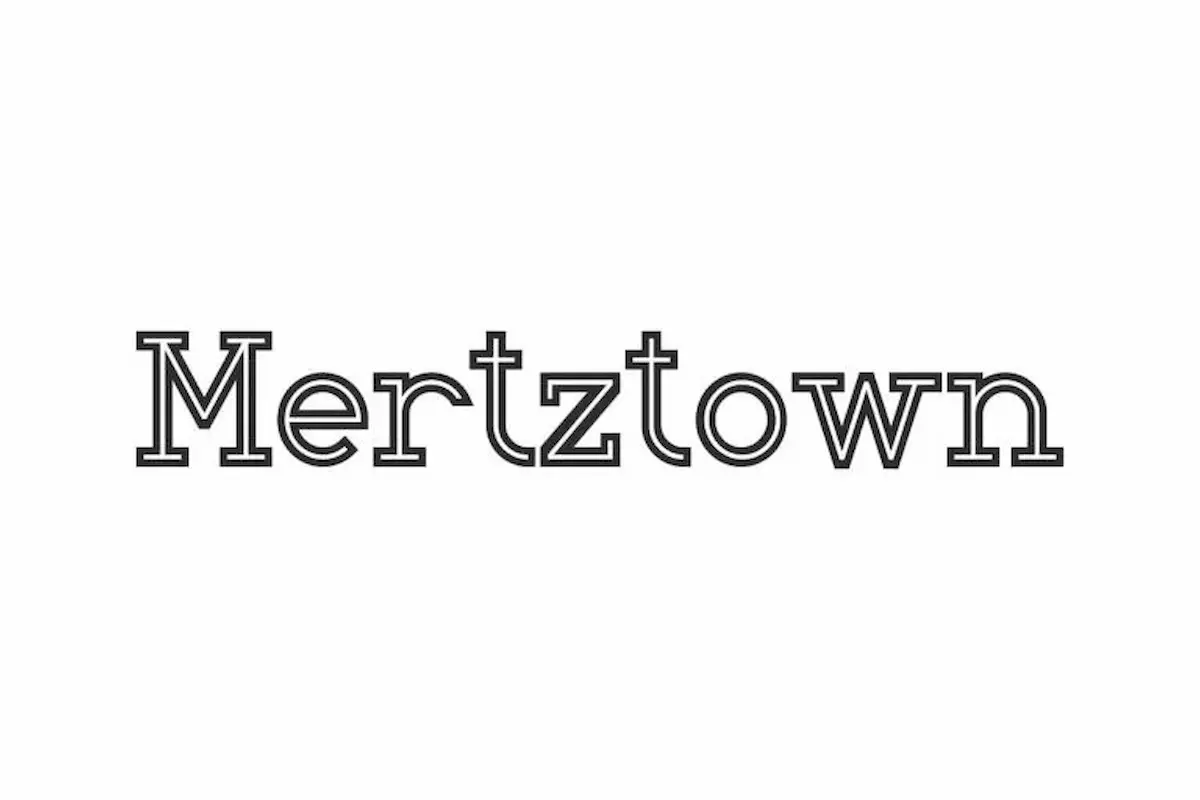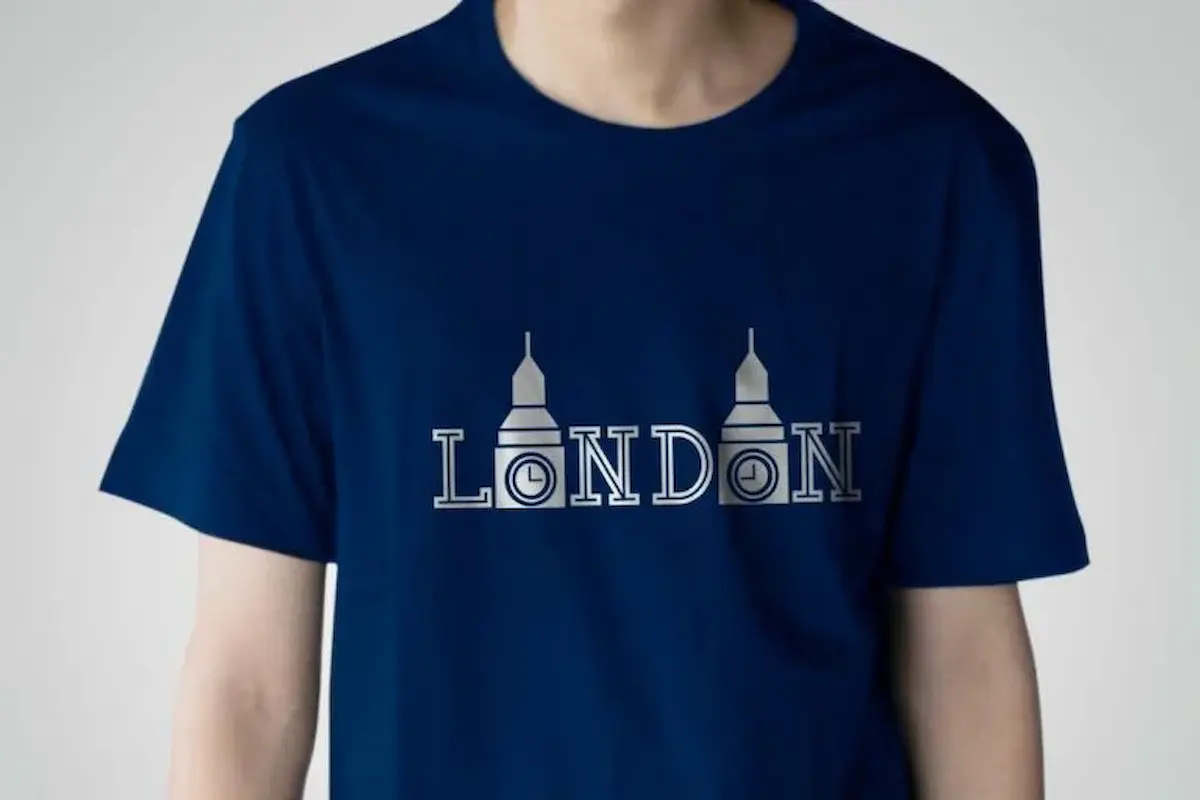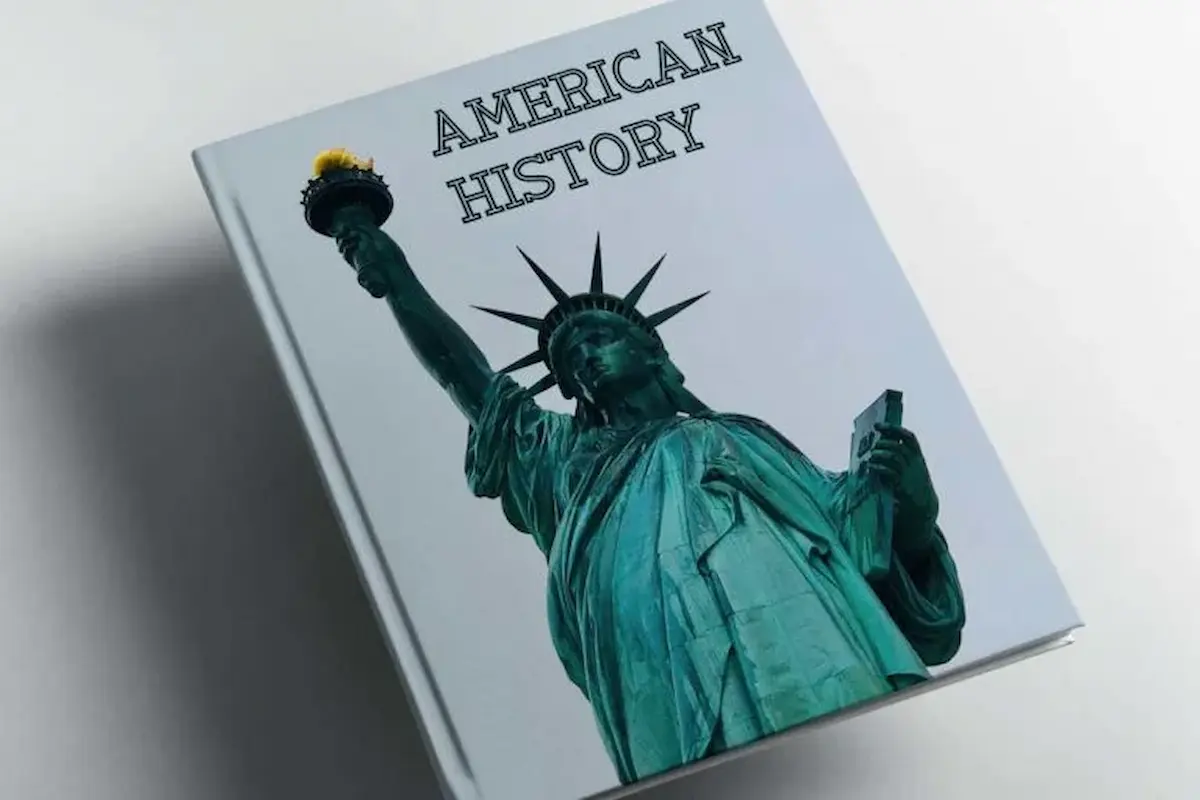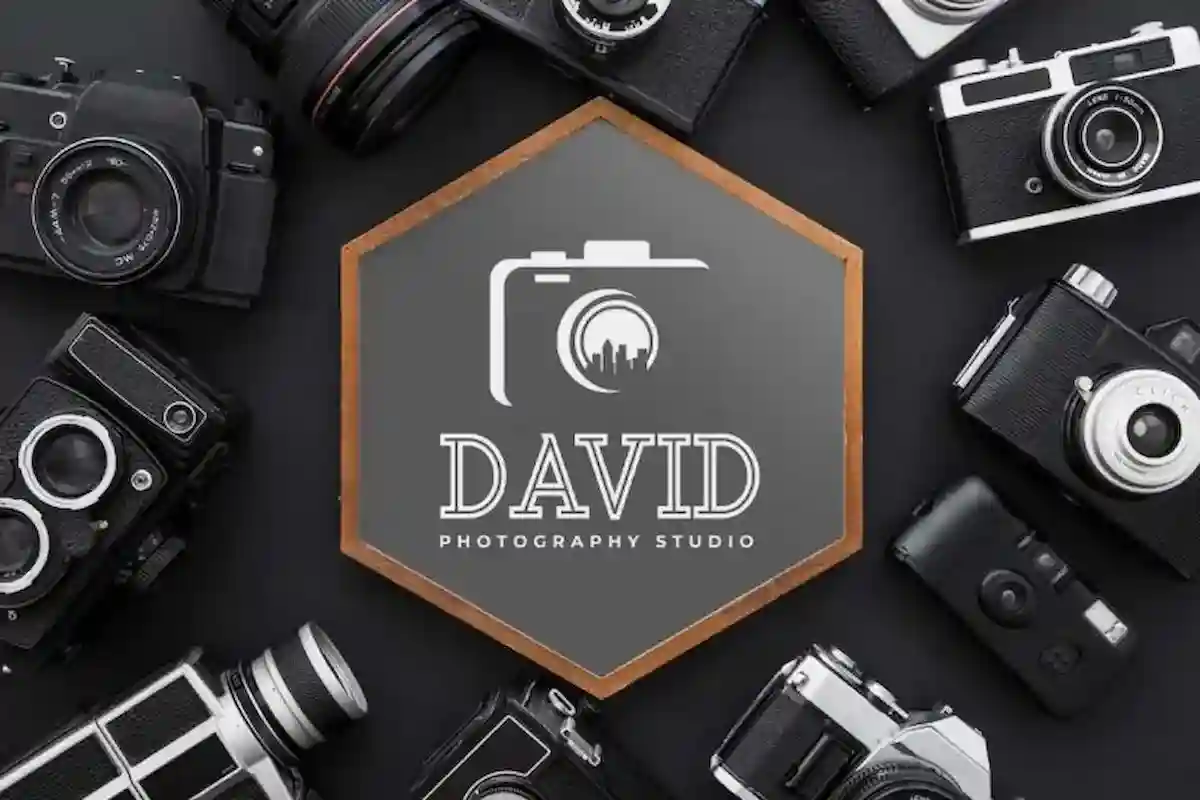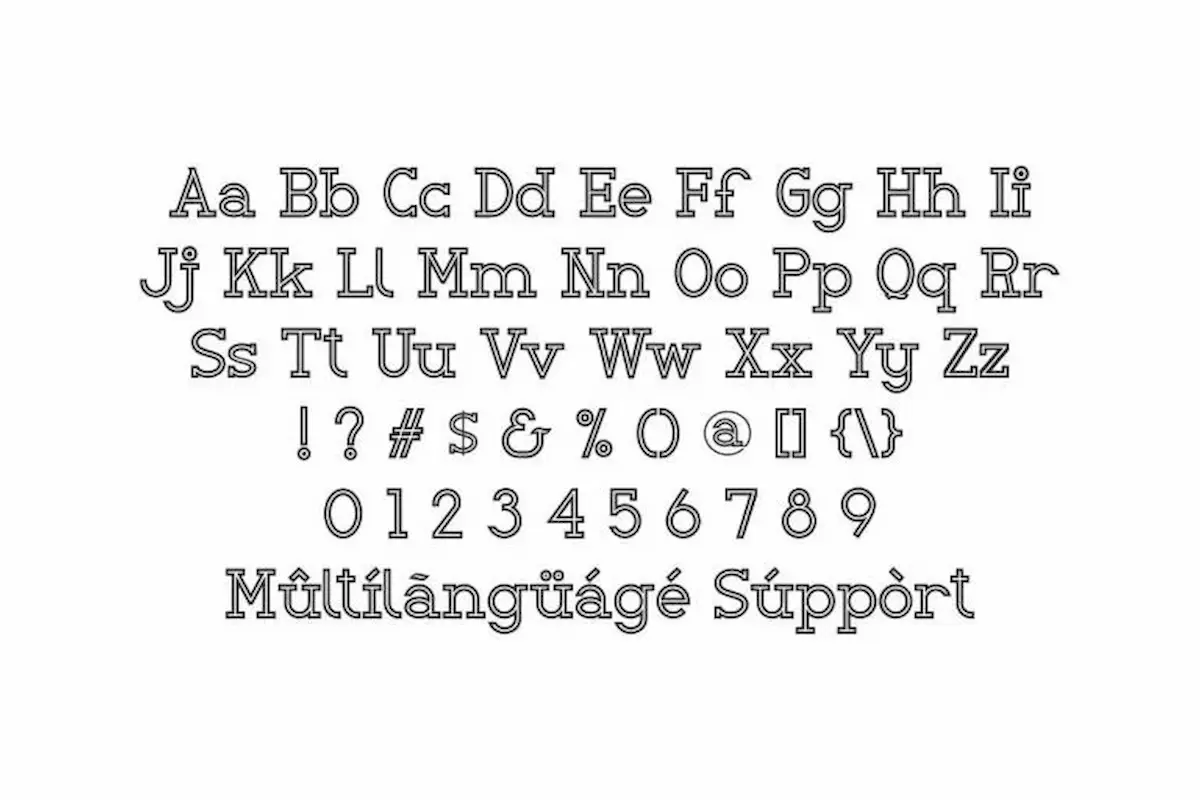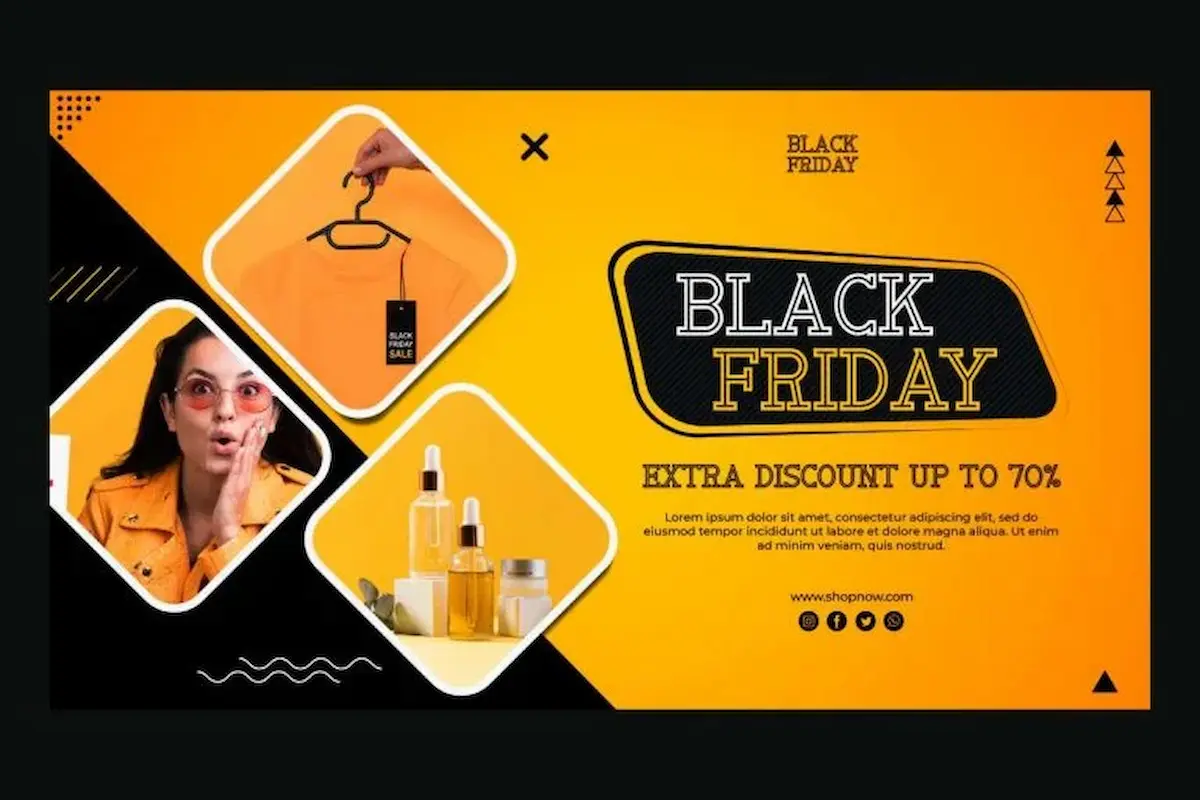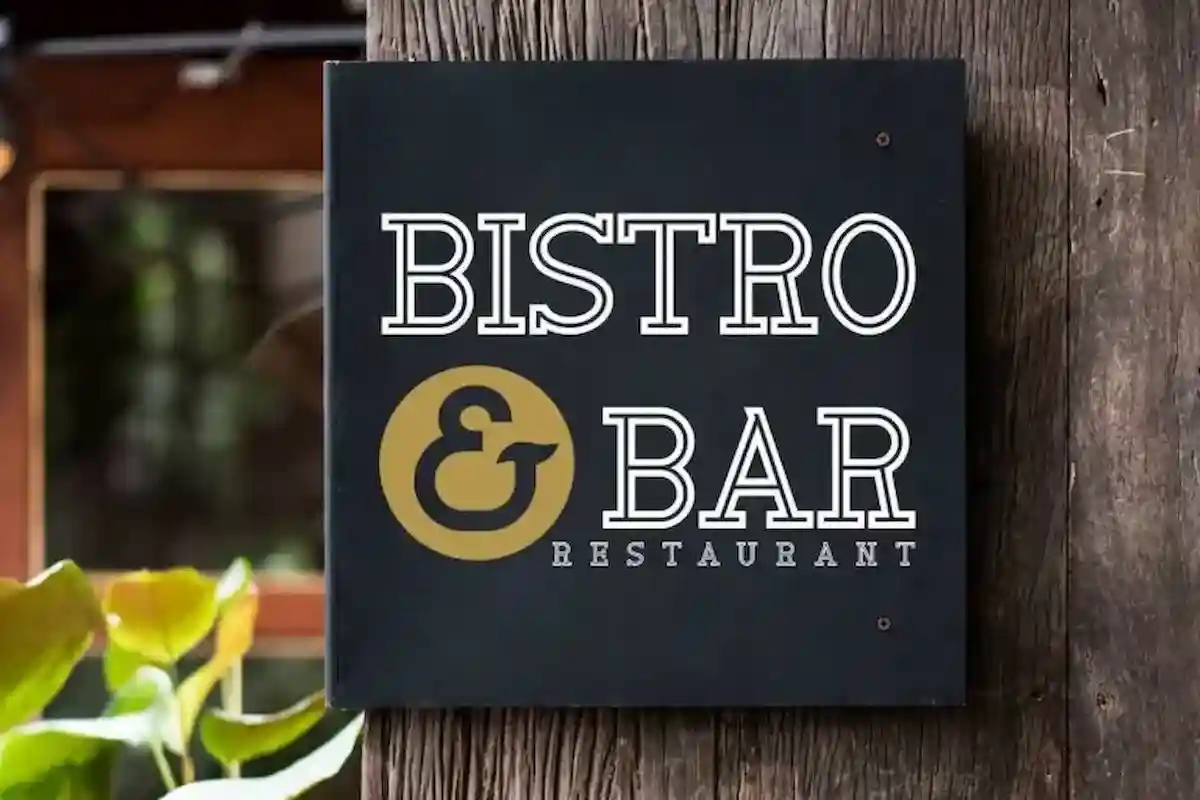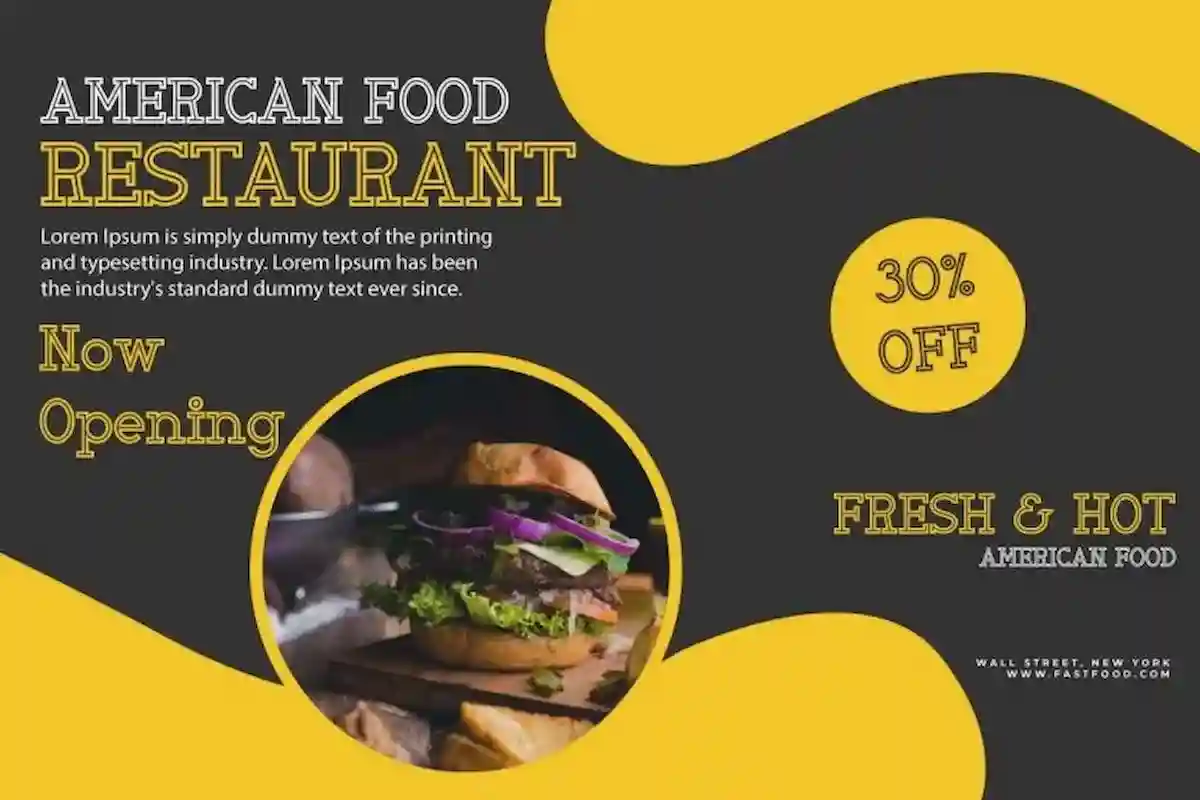
Mertztown Font
Mertztown Font is a display serif font by NihStudio. The font has unique style : outlined. It will great for café, restaurant, music, western, automotive etc.